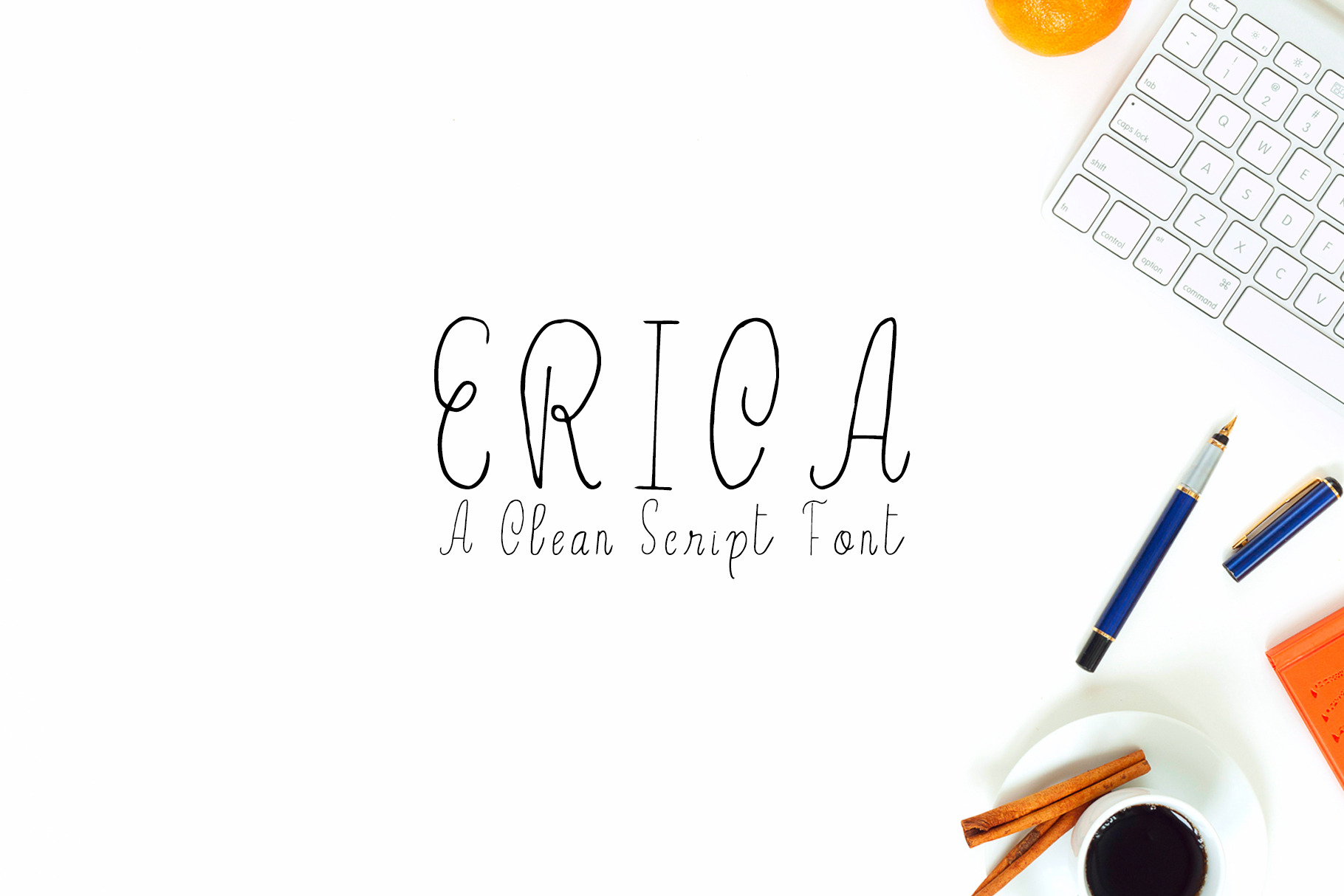
Erica Script Font
Erica is a beautiful handwritten font which contains 1 weight and that is specifically designed for minimal projects. It looks impressive for branding, websites, clean designs, logos, headlines, banners and templates etc. It looks gorgeous in all caps with a wide-set spacing if you want to try a classy look, or beautiful on its own in capital and lowercase letters for something completely timeless.
- Extras: Uppercase Multilingual Letters, Lowercase Multilingual Letters, Numbers and Punctuation